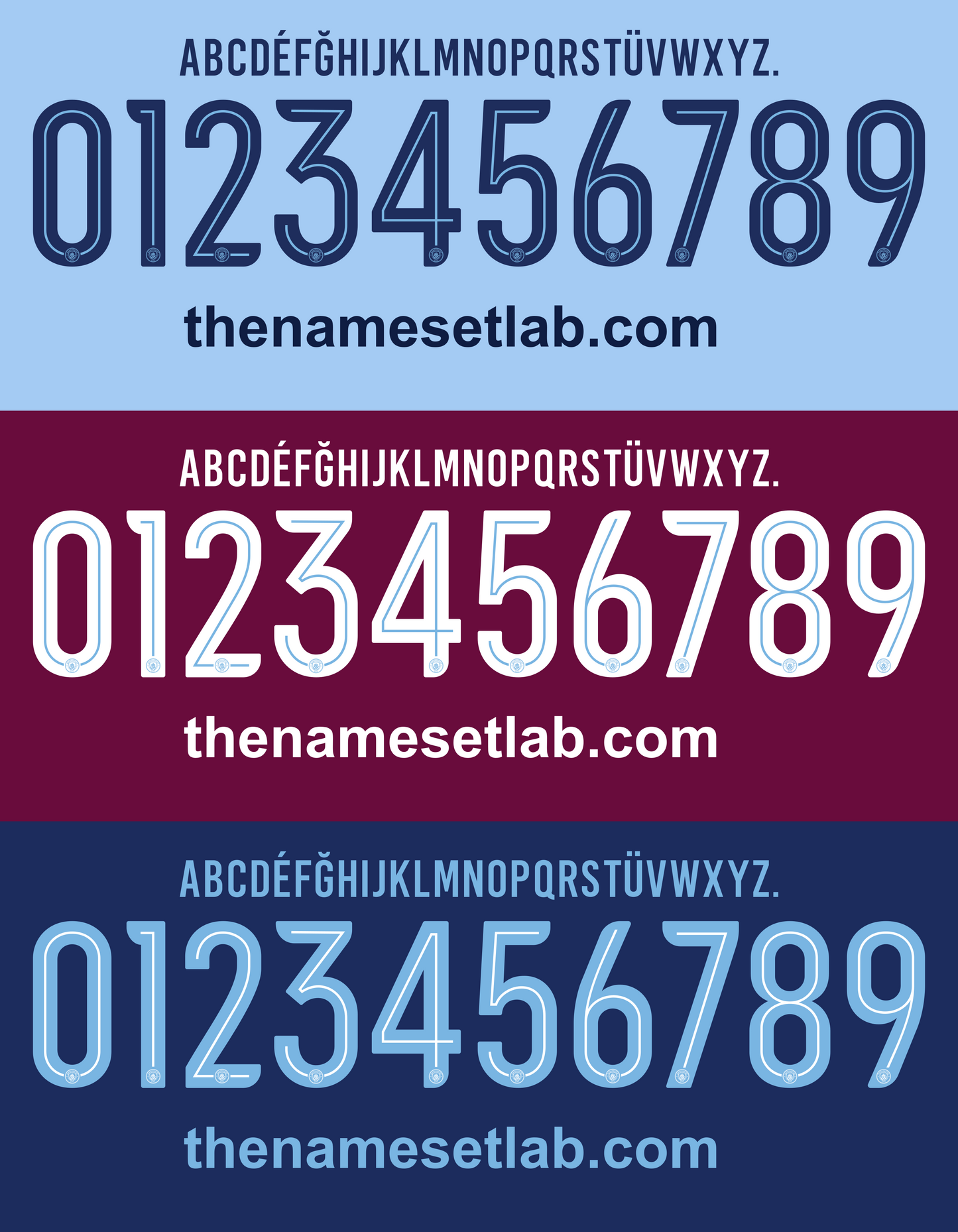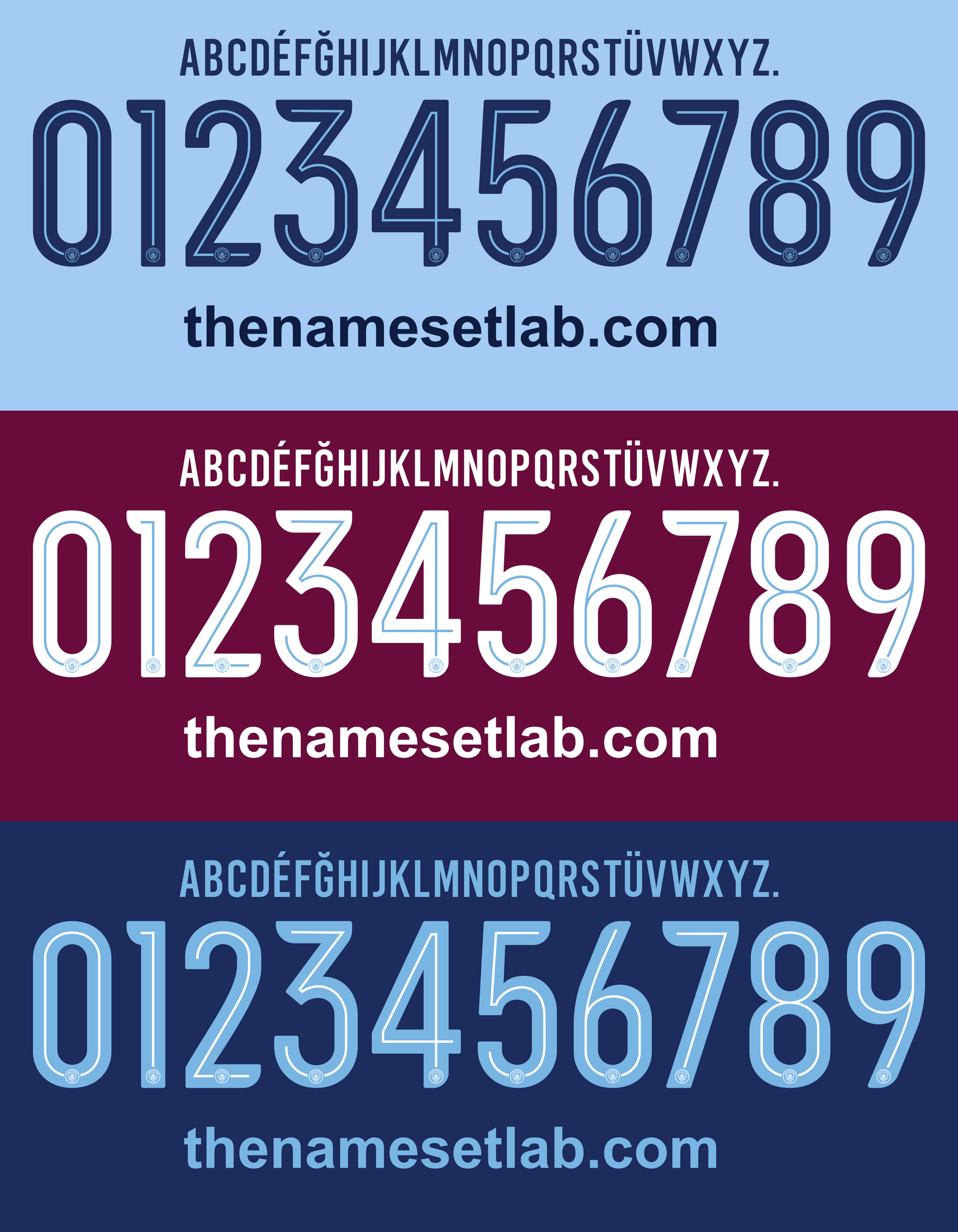
Manchester City 17-18 UCL / Cup Font Nameset AI Vector File
Download this Manchester City 2017-2018 UCL / Cup nameset as an editable .ai vector file. Styled in the 17/18 font, it’s perfect for recreating shirts from Pep Guardiola’s record-breaking Centurions season, where City amassed 100 Premier League points and dazzled in Europe. Ideal for custom kit designs or memorabilia projects.